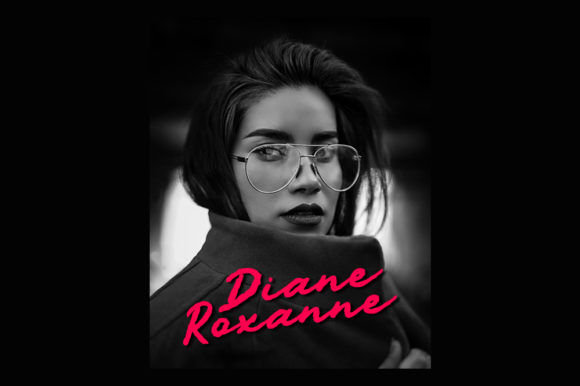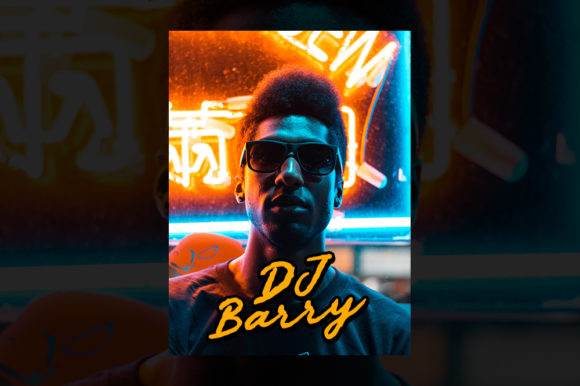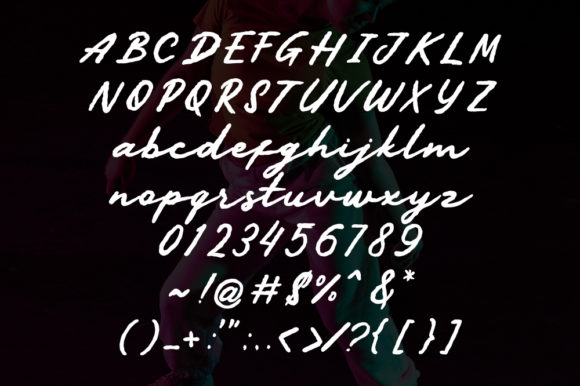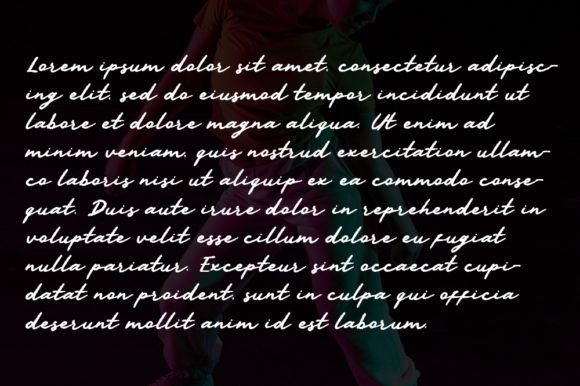
Introduction to Pesta Danza Font
Pesta Danza is an authentic and flowing handwritten font with an incredibly friendly feel.
Clean and a little bit quirky, this font is the perfect fit for all of your logos, branding, social media, and crafty DIY projects .